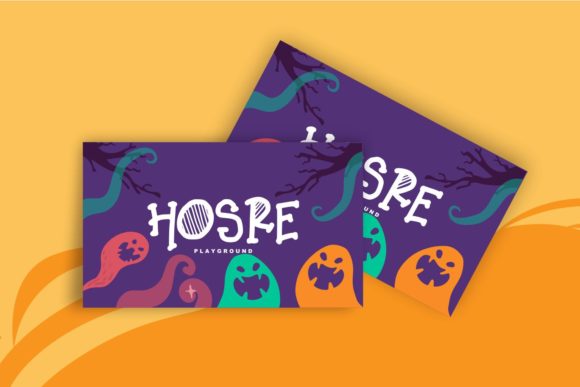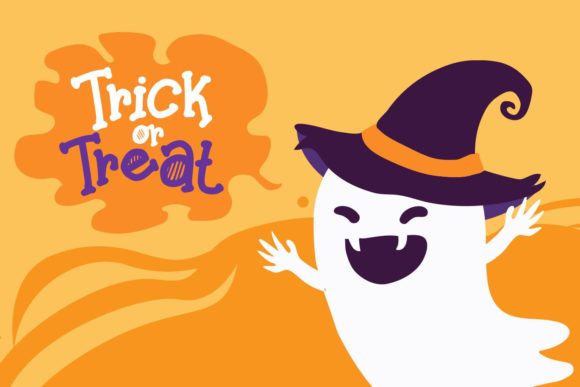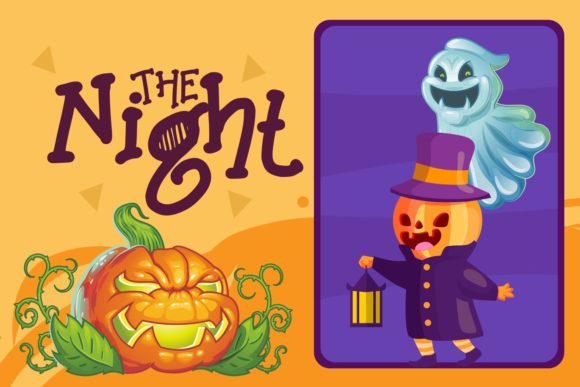
Introduction to Green Walk Font
Green Walk is a fun and playful script with a dynamic style.
Key Features of Green Walk Font
Why Choose Green Walk Font?